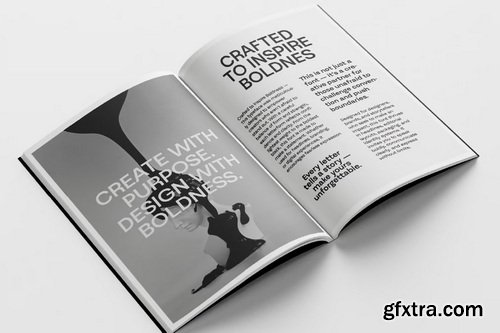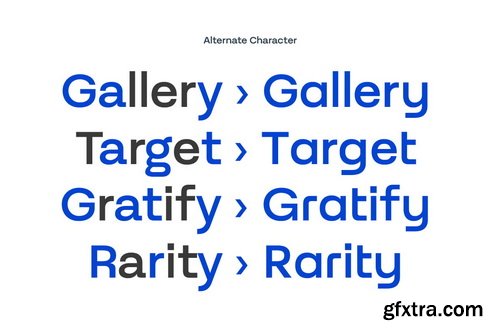
Rumeno Font Family
Rumeno is a clean and versatile grotesk style sans serif typeface designed to bring clarity, balance, and boldness to your creative projects. With 6 carefully crafted weights from Light to ExtraBold, Rumeno offers strong visual hierarchy and refined legibility, perfect for both print and screen use. Rumeno is perfect for a wide range of design applications including branding and logo design, editorial layouts, user interfaces, posters and advertising, as well as packaging and product labels. Its clean lines and flexible character set make it a reliable choice for both modern and timeless design projects.